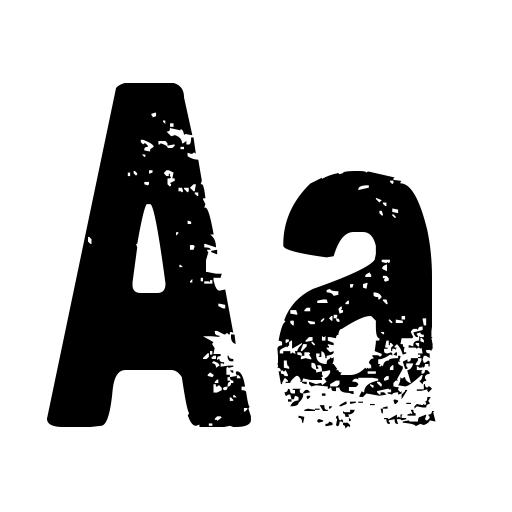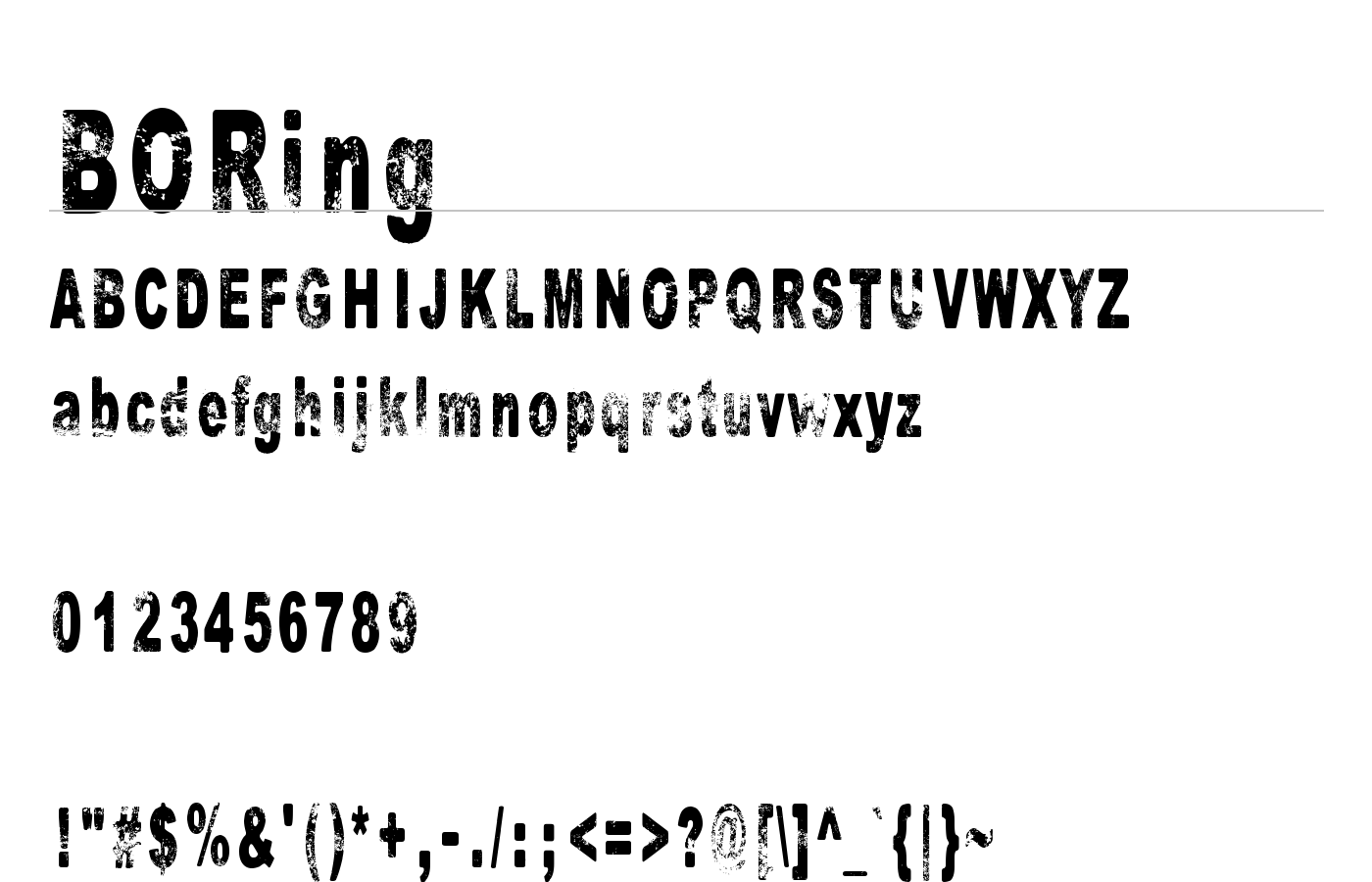
BORing Font is a bold, condensed sans serif typeface with a distressed, grungy texture that gives it a rugged and worn appearance. Its strong vertical rhythm and uneven surface make it ideal for edgy, urban, or vintage-inspired designs such as posters, branding, and headlines where a bold statement with character is needed. This font works best in display use, adding personality and a raw, dynamic feel to creative projects.
BORing Font
About BORing Font
| Font family | BORing Font |